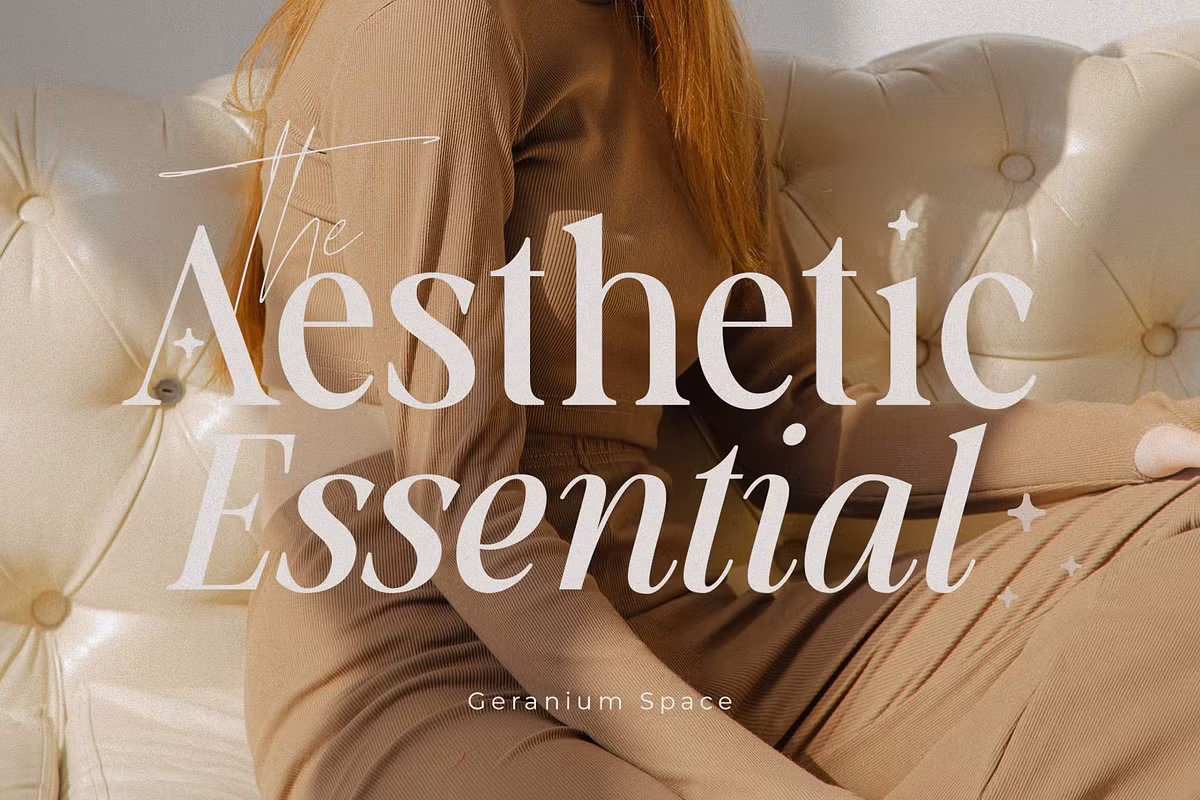
Aesthetic Essential | Modern Serif Free Download
Aesthetic Essential | Modern Serif Font Free Download
Aesthetic Essential | Modern Serif Font Free Download is a sleek and contemporary serif typeface designed to bring sophistication and clarity to your typography. With its balanced proportions, clean lines, and modern appeal, this font is ideal for high-end branding, editorial layouts, websites, and other professional design projects.
The elegant yet minimalistic style of Aesthetic Essential makes it a versatile choice for both large display headings and smaller body text, offering clarity and readability while still delivering a chic, polished aesthetic.
Add a modern and stylish touch to your designs with Aesthetic Essential | Modern Serif Font Free Download, and create polished, professional typography for your creative projects. Perfect for designers seeking a sophisticated and contemporary serif font.